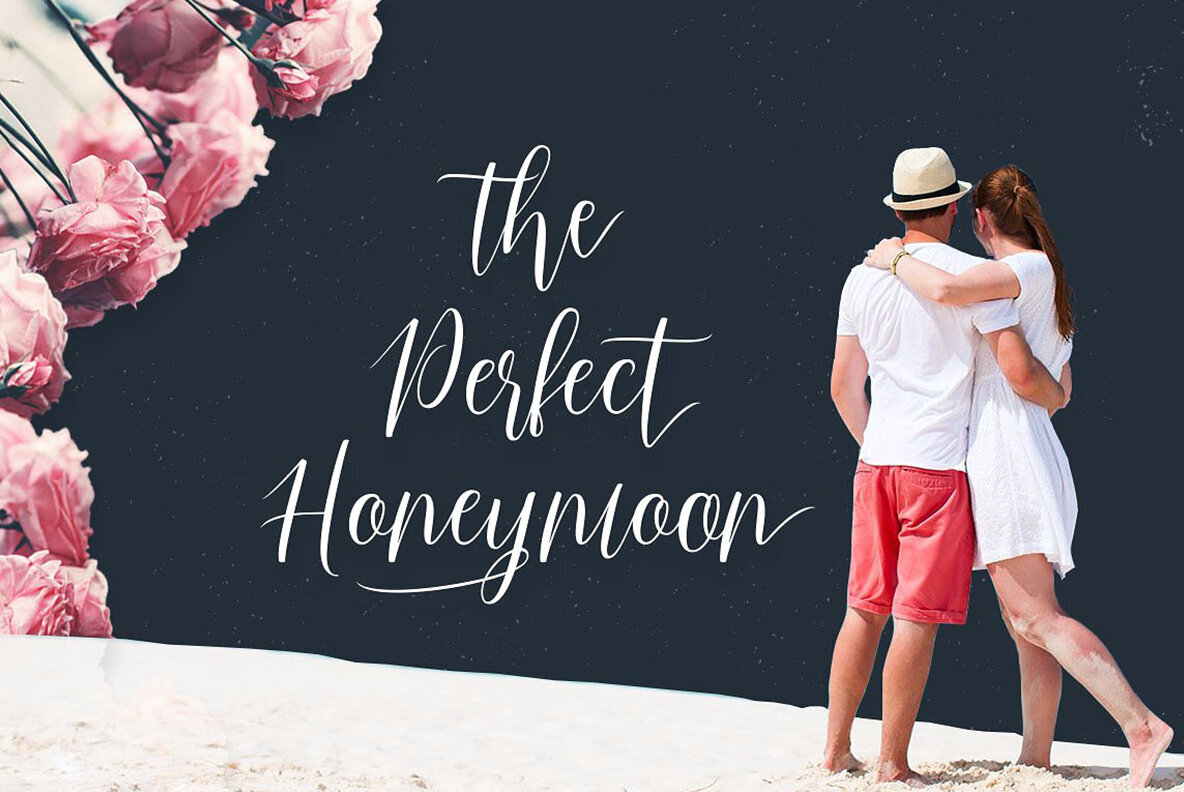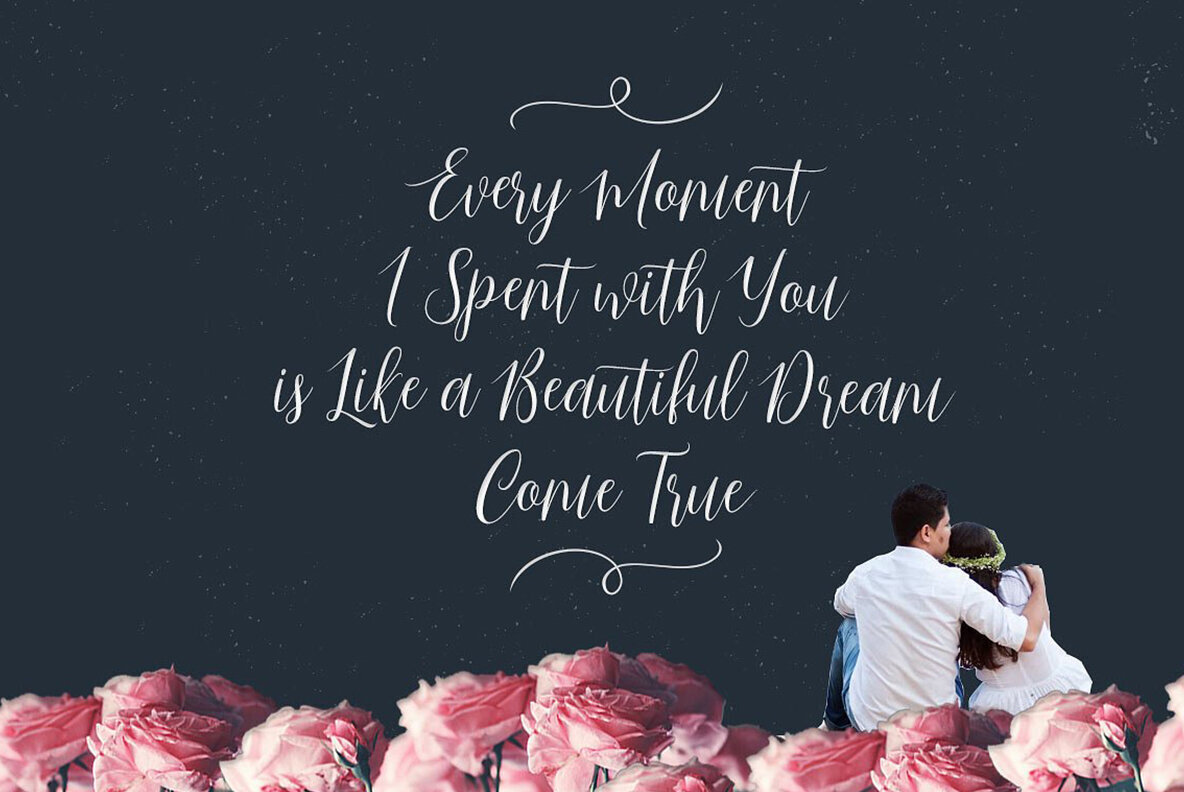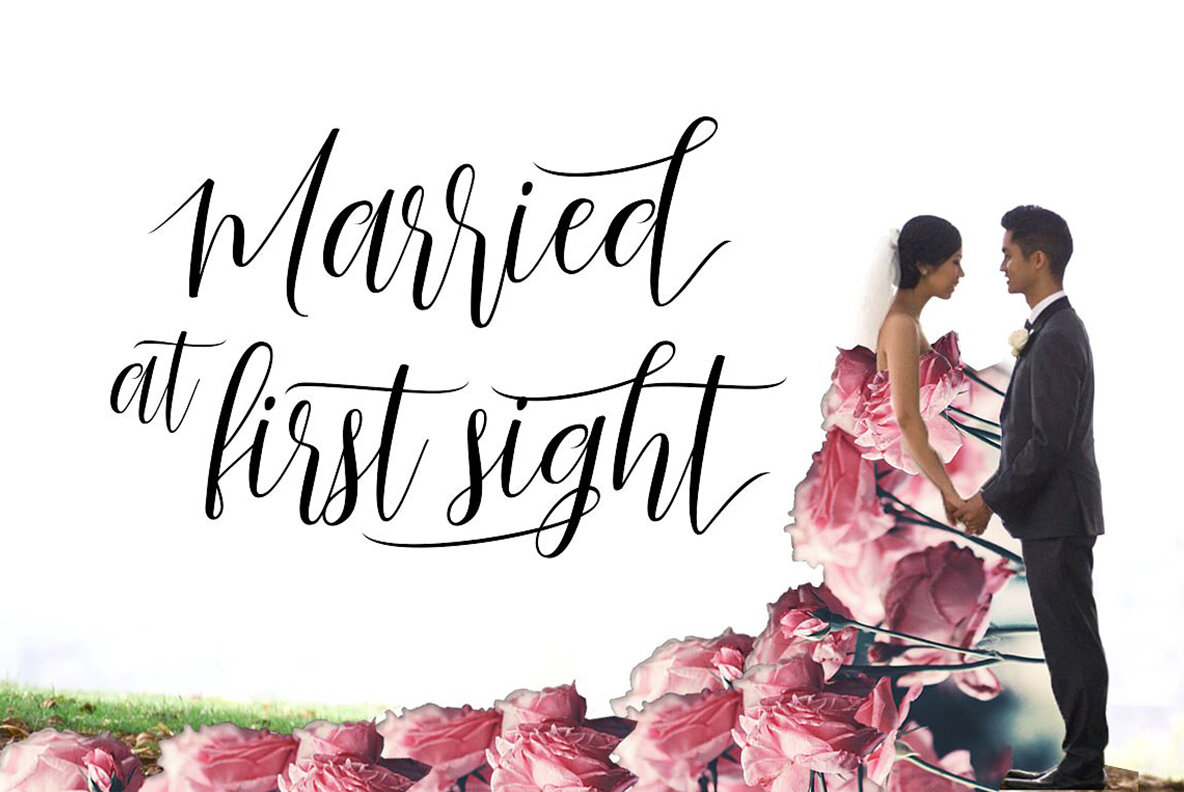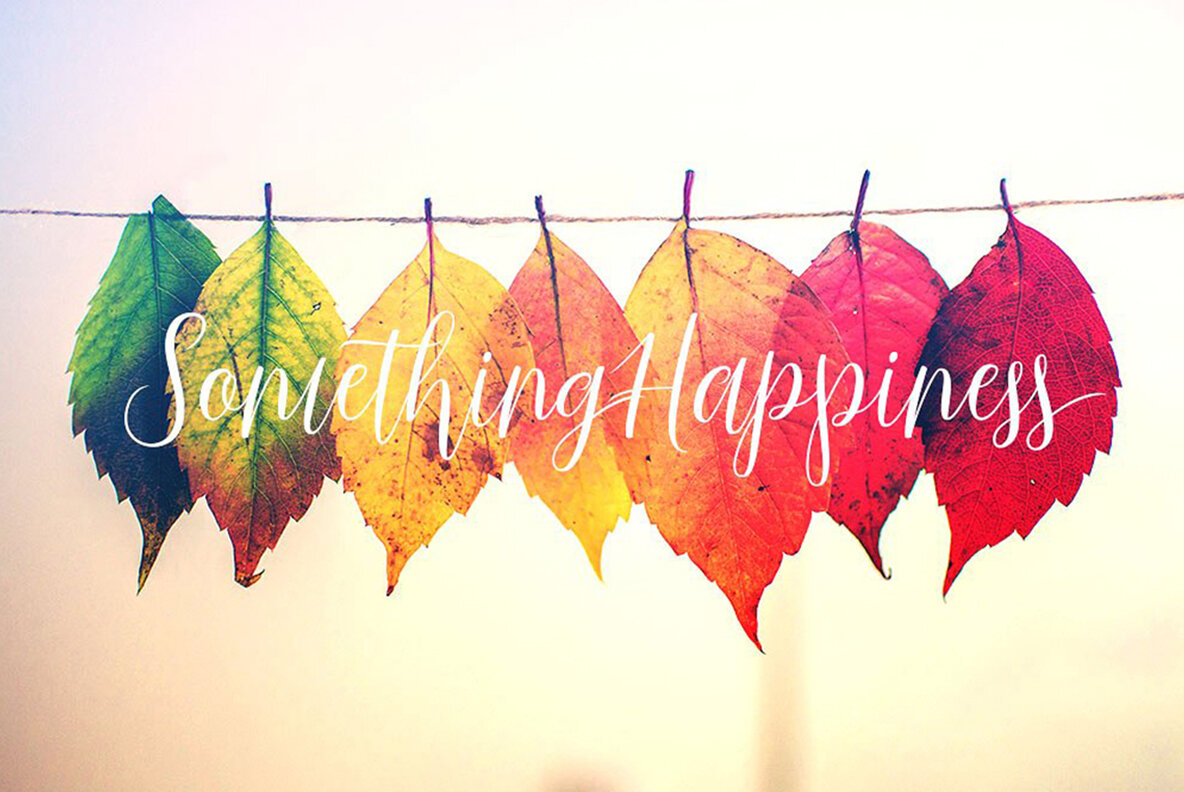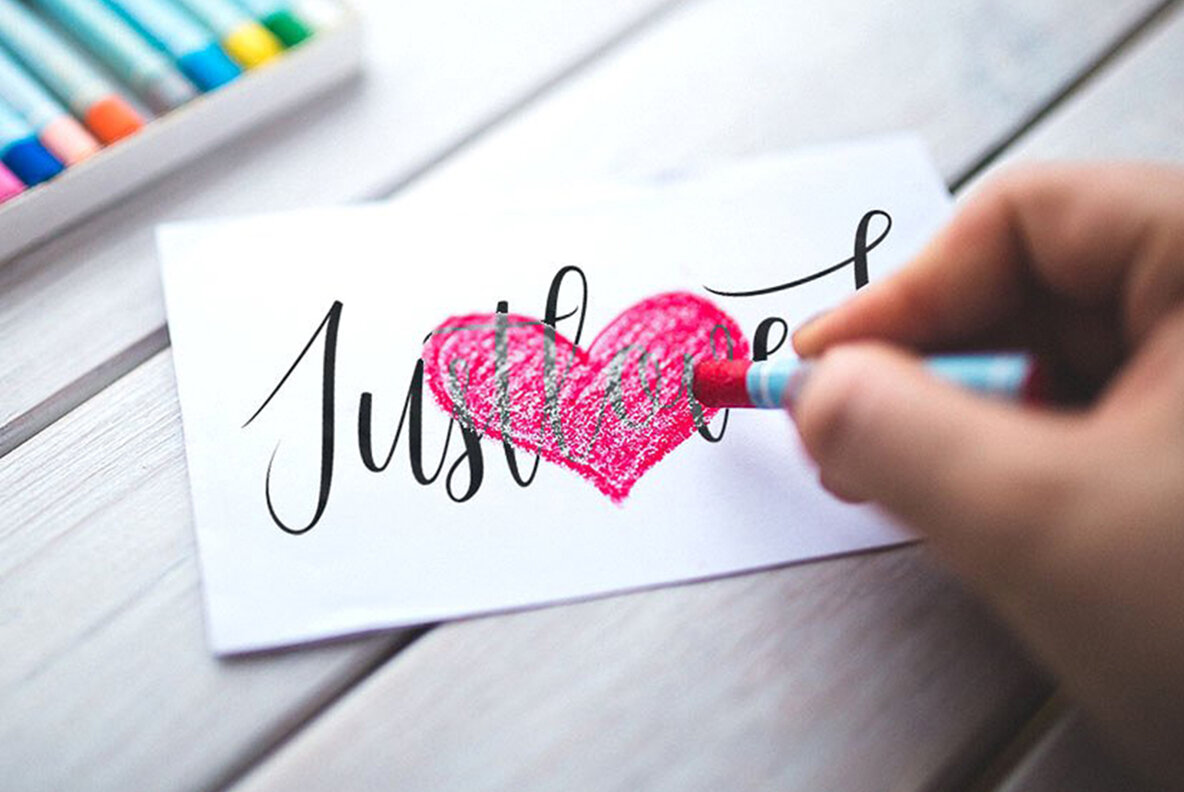
Just Married Font
Just Married Script by Gatype is a charming handwritten font, perfect for crafting personalized greeting cards, wedding invitations, uplifting quotes, posters, and various creative projects. Its playful characters add a delightful touch to any design. Just Married Script offers several unique features that make it easy and convenient to use. Just Married Script supports a variety of languages, including:Just Married: Feminine Script Font for Elegant Designs
Notable Features